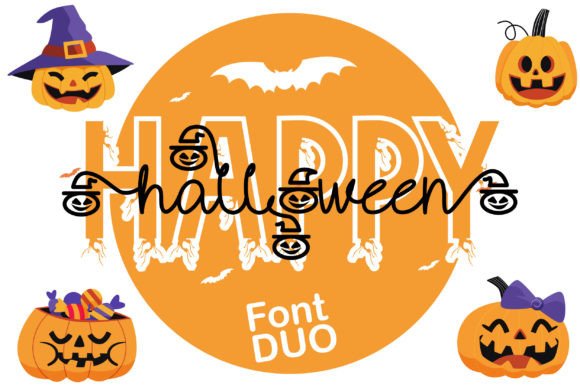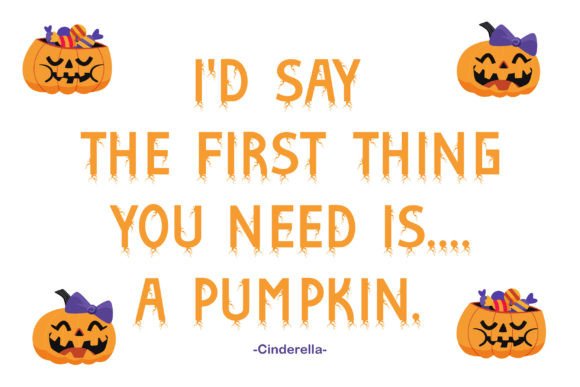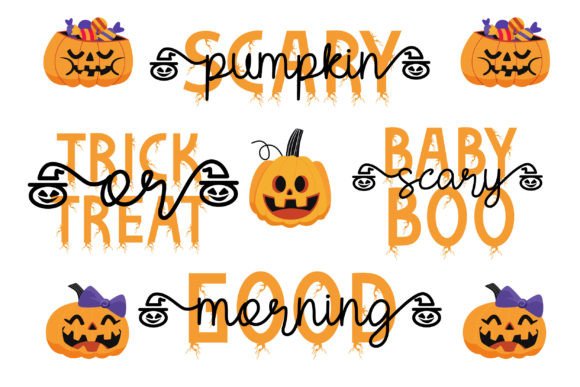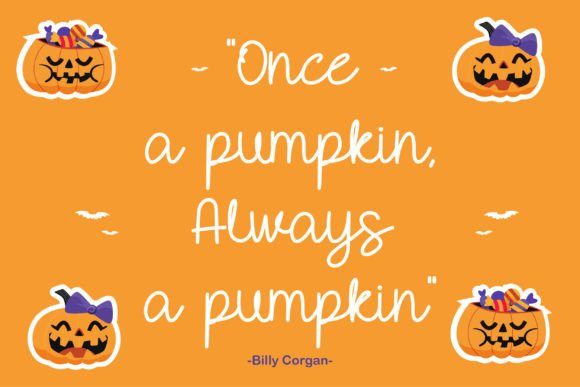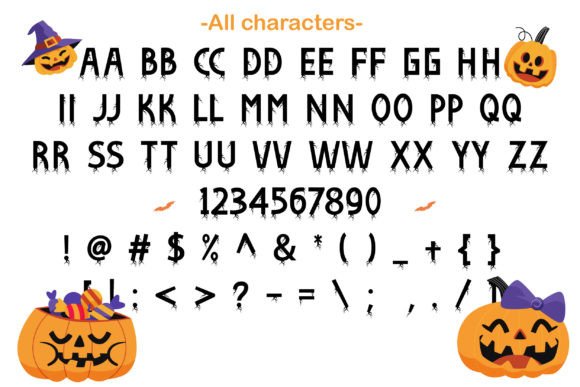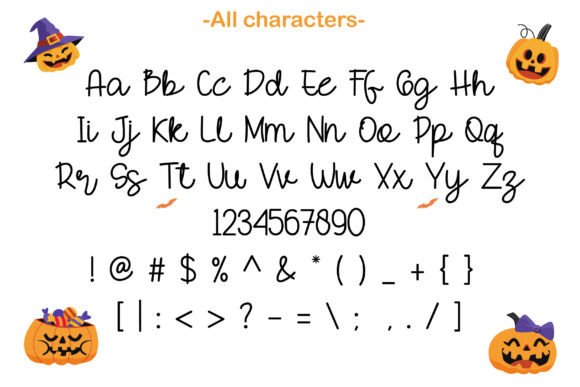
Introduction to Pumpkin Hat Font
As a designer, there’s nothing quite like the thrill of brainstorming ideas for a creative project. And what’s more exciting than conjuring up spooky spirit with a dash of whimsy? It was during one such brainstorming session that I stumbled upon the Pumpkin Hat Font, a delightful duo that has since become a staple in my design arsenal.
This high-quality font is more than just a pretty face; it’s a design resource that offers endless possibilities for creative expression. With its stylish monoline script and display font, the Pumpkin Hat Font is perfect for adding a touch of Halloween magic to your designs. Whether you’re working on a Halloween-themed book, poster, or t-shirt, this font is sure to elevate your project to new heights.
Pumpkin Hat Font
- High-quality design: The Pumpkin Hat Font is a unique and creative design resource perfect for various projects.
- Transparent background: This font features a transparent background, allowing for easy customization and versatility in design projects.
- Perfect for creative projects: The Pumpkin Hat Font is ideal for use in various creative projects, such as graphic design, digital art, and craft designs.
Honest Review: Pumpkin Hat Font
I recently had the chance to experiment with the Pumpkin Hat Font, and I must say it’s a great addition to any design resource library. ✨ This font is perfect for those creative projects that require a touch of whimsy and playfulness. The high-quality design is immediately noticeable, with each character carefully crafted to convey the playful spirit of the font.
One of the standout features of the Pumpkin Hat Font is its transparent background, making it easy to combine with other design elements without worrying about distracting backgrounds. This feature alone makes it a great asset for any design project.
- High-quality design that conveys a playful spirit
- Transparent background for easy design integration
- Perfect for creative projects that require a touch of whimsy
- ⚠️ Limited character set may not be suitable for extensive text-based projects
- ⚠️ May require additional formatting to achieve desired design look
Overall, I’m impressed with the Pumpkin Hat Font, and I can see it being a valuable resource for designers looking to add some personality to their projects. With a little creativity, this font can be used to create truly unique and eye-catching designs.
Pumpkin Hat Font
The Pumpkin Hat Font is perfect for fall-themed designs, children’s parties, and other creative projects that require a playful and whimsical touch.